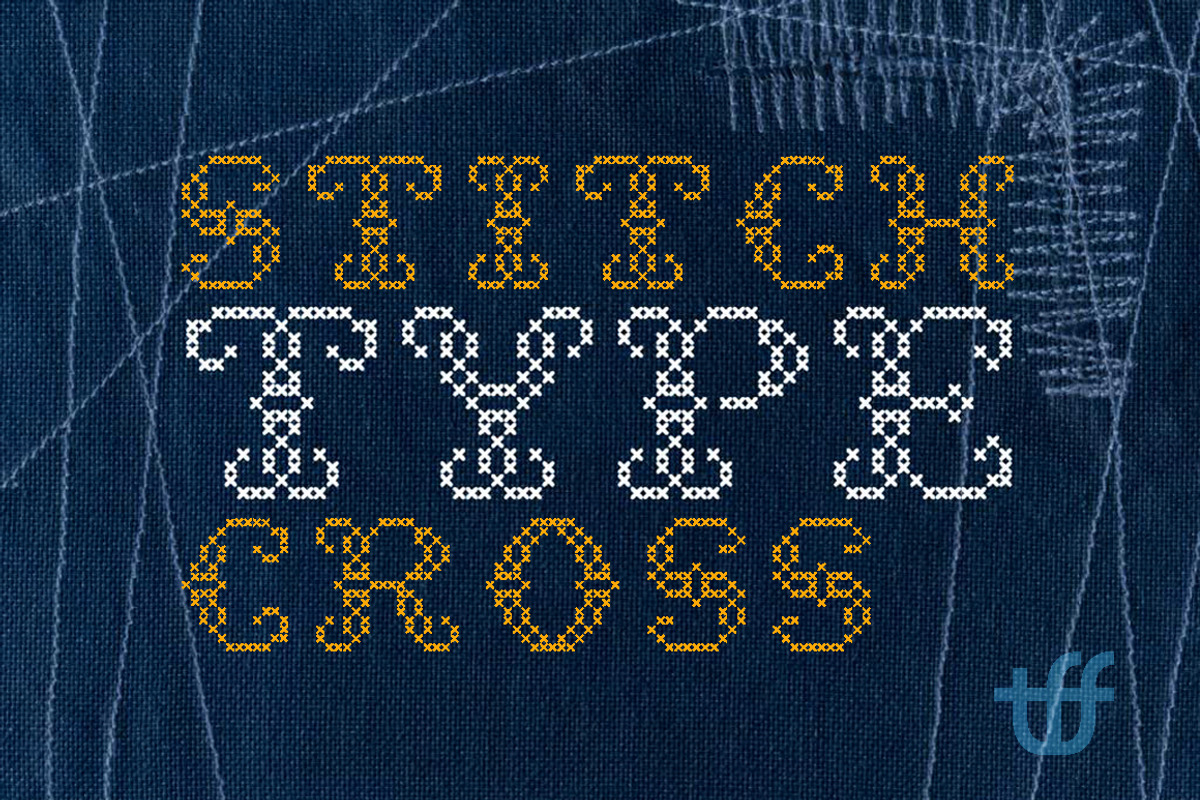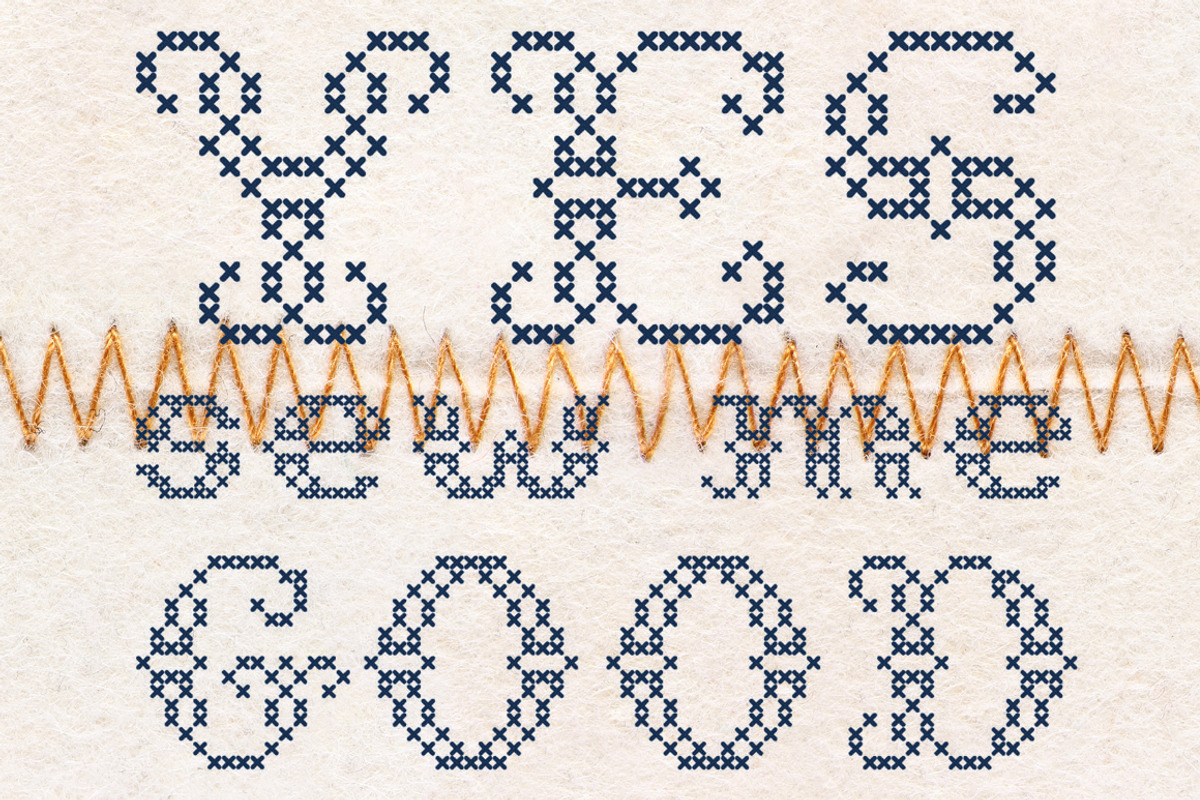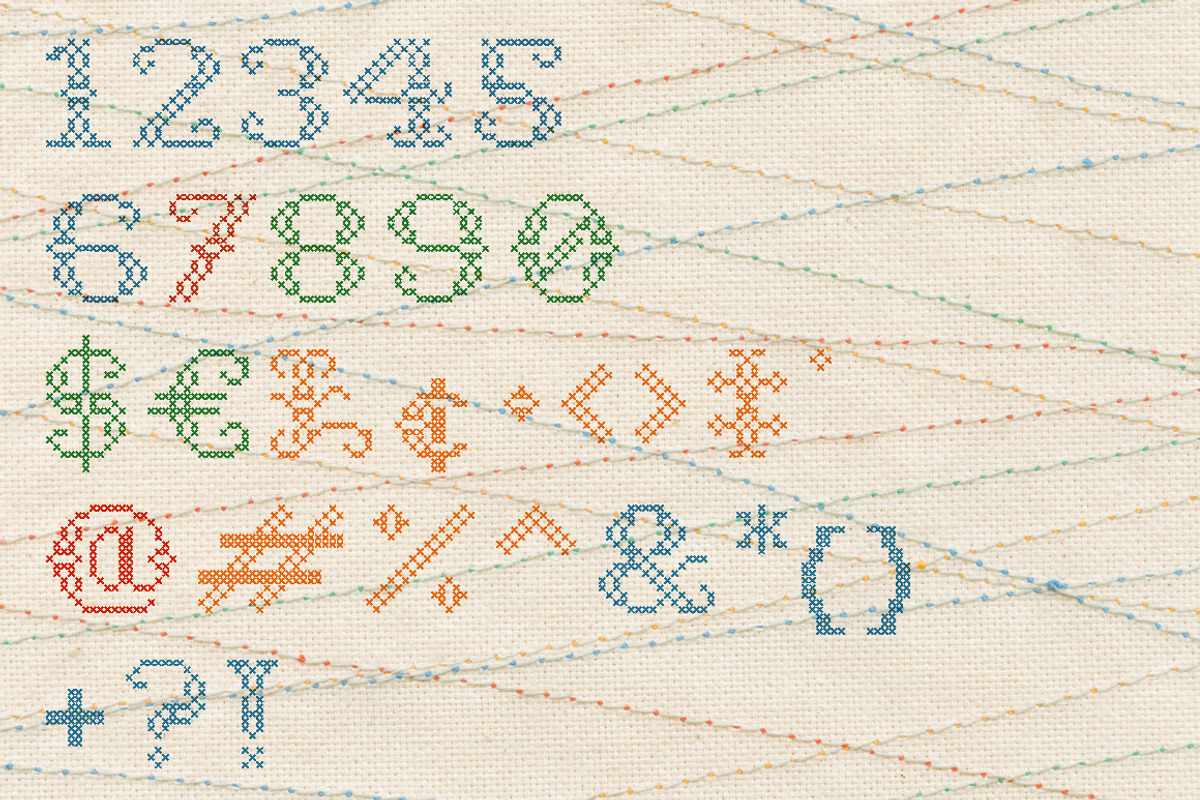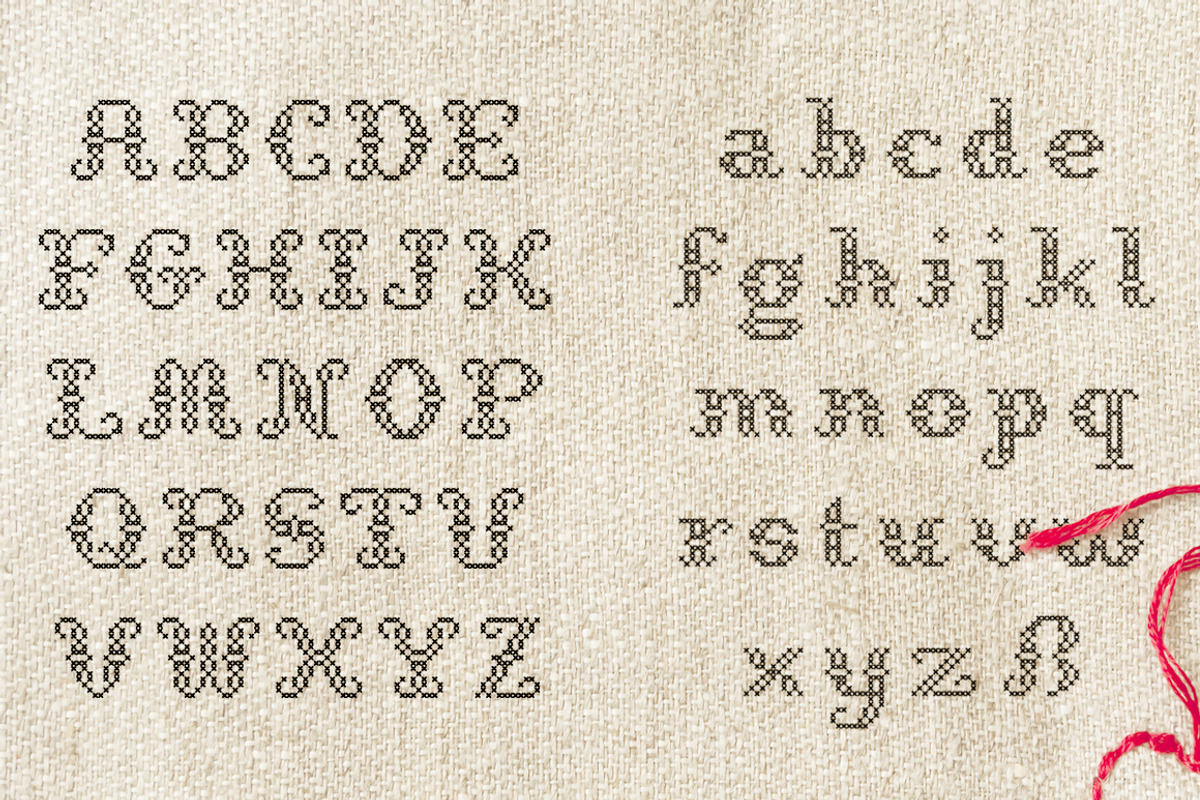
StitchCross
StitchCross by TypeFaith Fonts is a font selected for branding, posters, packaging, typography.
Why StitchCross is worth a look
StitchCross by TypeFaith Fonts fits naturally into Branding, posters, packaging, typography.